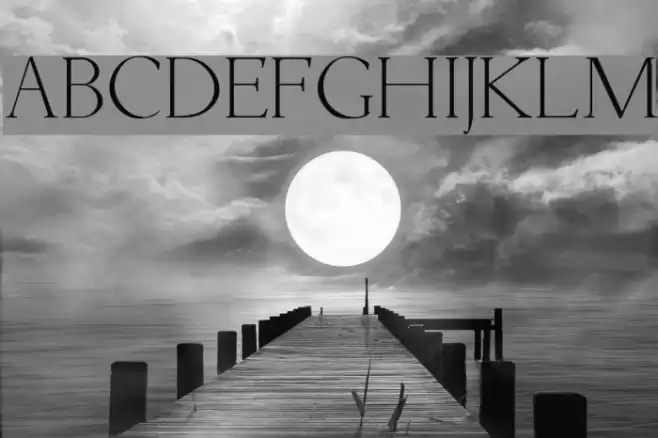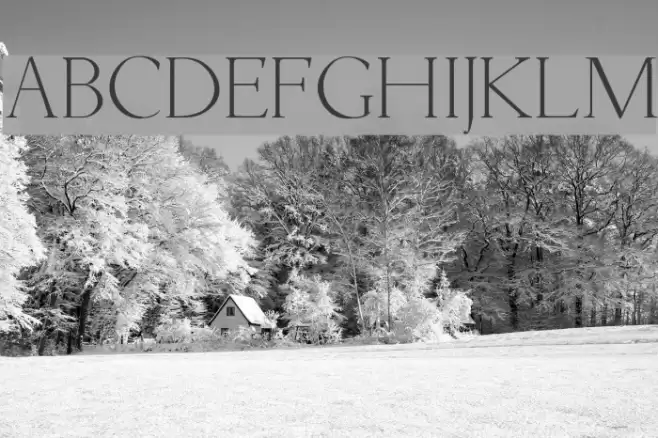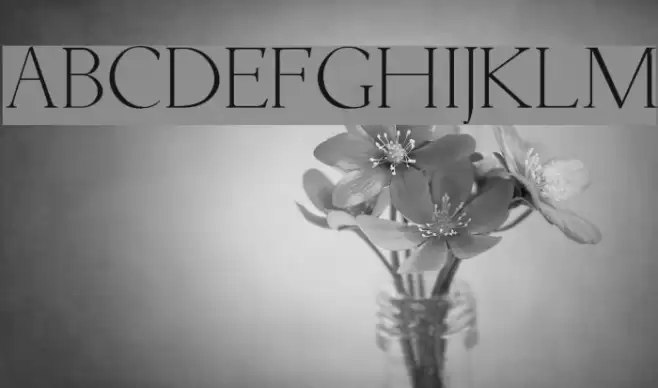
Livia Font
Livia Description
This font exudes a classic elegance with its high contrast between thick and thin strokes, characteristic of traditional serif typefaces. The serifs are sharp and pronounced, giving each letter a refined and sophisticated appearance. The uppercase letters are tall and stately, while the lowercase letters maintain a balanced proportion, ensuring readability. The numerals are distinct and align well with the overall style, making them suitable for formal and professional contexts. Special characters are elegantly integrated, maintaining the font's cohesive aesthetic.
A classic serif font with high contrast and refined elegance from Uncategorized fonts.
- Proposed Projects: Ideal for luxury branding, editorial design, formal invitations, and high-end packaging.
- Contrast: High
- Overall Style: Classic
- Use Case: Headlines, Body text, Logos